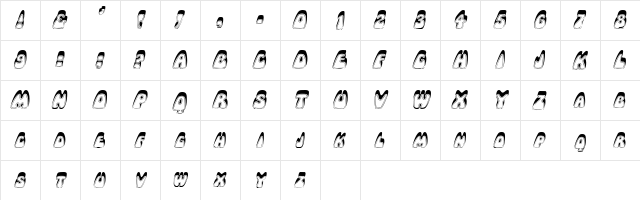
RobleRoundedSCapsSSK Italic Font Preview
Design Context for RobleRoundedSCapsSSK Typeface
RobleRoundedSCapsSSK uses gentle rounded endings to create a warm, inviting typographic personality — less corporate than geometric sans, more refined than playful display fonts. The dynamic lean of this cut emphasises speed and emphasis in any layout.
A natural fit for tech startups, health and wellness brands, children's products, and friendly consumer apps.
Font Pairing: Pairs well with a rounded or humanist sans for body copy, maintaining the friendly tone without relying on RobleRoundedSCapsSSK to carry extended reading.
Pro Tip: Pair RobleRoundedSCapsSSK with a geometric sans for a balanced system — the rounded softness works as a warm counterpoint to harder-edged companions.